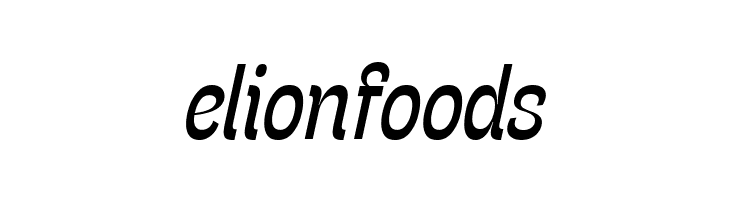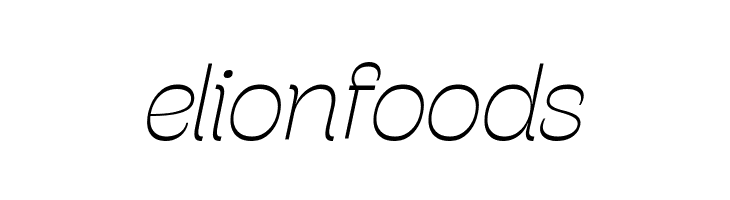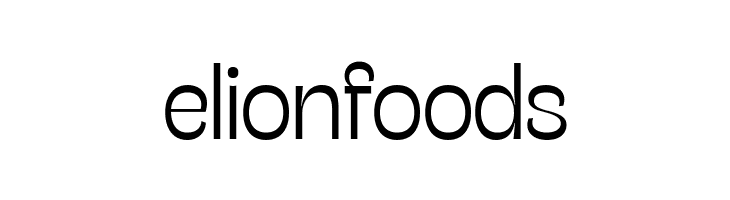
A sleek, modern, light italic font with consistent stroke width.
A modern, light sans-serif font with clean lines and excellent readability.
A sleek, modern font with thin, elegant strokes and a minimalist design.
A modern, wide sans-serif font with clean lines and balanced spacing.
A bold, modern font with geometric, rounded letterforms.
A modern, wide, and italic font with a sleek, dynamic appearance.
A thin, italicized font with a sleek and modern design.
A bold, wide, and heavy italic font with a modern and dynamic style.
A bold, modern font with clean lines and a strong presence.
A modern, thin, and wide font with a sleek, minimalist design.
A bold, heavy font with a modern and assertive style.
A sleek, modern font with tall, narrow characters and a minimalist aesthetic.
A sleek, modern italic font with slim, elongated characters.
A bold, italicized font with thick strokes and a dynamic, energetic style.
A bold, italic font with a dynamic and robust style.
A sleek, thin, and italicized modern font with elegant curves.
A bold, wide font with heavy strokes, perfect for impactful headlines.
A sleek, modern, thin italic font with elongated characters.
A bold, modern font with thick strokes and rounded edges.
A modern, italic font with sleek lines and a dynamic appearance.
A modern italic font with smooth curves and a dynamic style.
A sleek, modern font with thin lines and a geometric design.
A bold, heavy italic font with a dynamic and modern style.
A bold, geometric typeface with thick, uniform strokes and rounded edges.
A bold, italic font with a dynamic and modern style.
A modern, slim sans-serif font with a clean and elegant design.
A bold, heavy italic font with a dynamic and impactful style.
A sleek, modern, light italic font with medium contrast and condensed spacing.
A bold, wide typeface with geometric shapes and clean lines, ideal for impactful designs.
A modern, wide, and rounded font with a clean and open design.
A modern, geometric sans-serif font with uniform stroke widths.
A bold, heavy font with wide, rounded characters ideal for impactful headlines.
A sleek, modern thin italic font with elegant, refined strokes.
A sleek, modern font with thin, elongated strokes for a minimalist aesthetic.
A modern, light sans-serif font with clean lines and excellent readability.